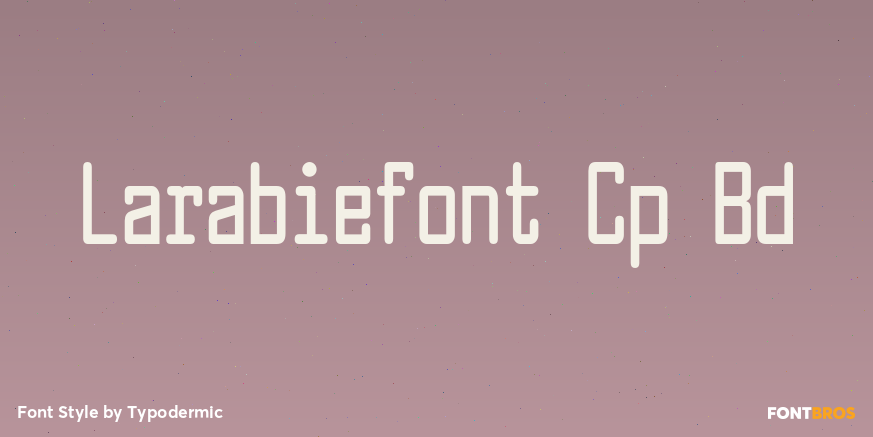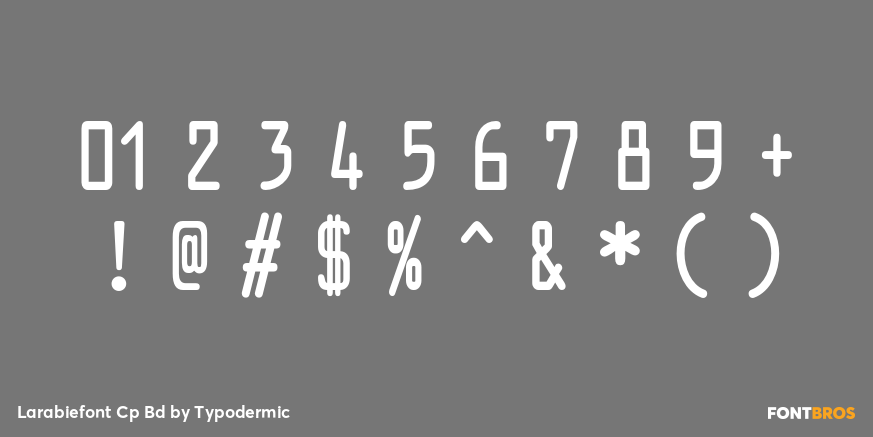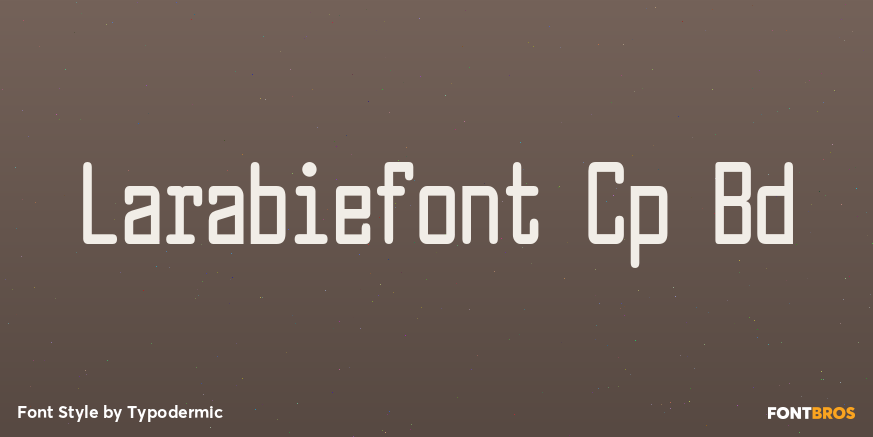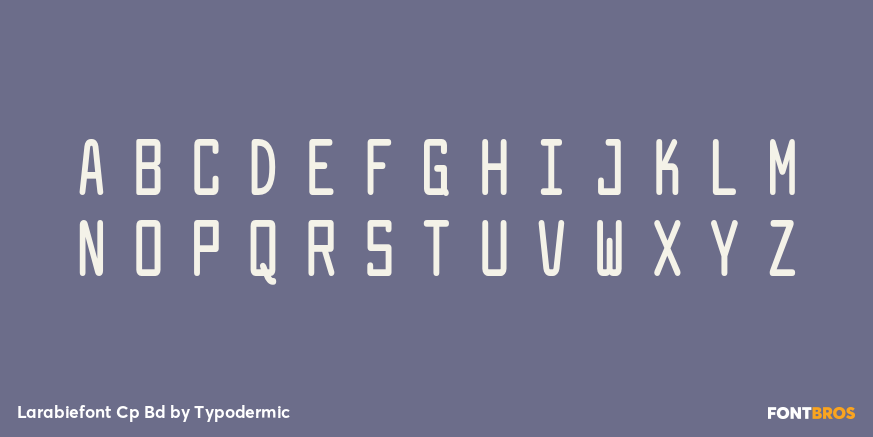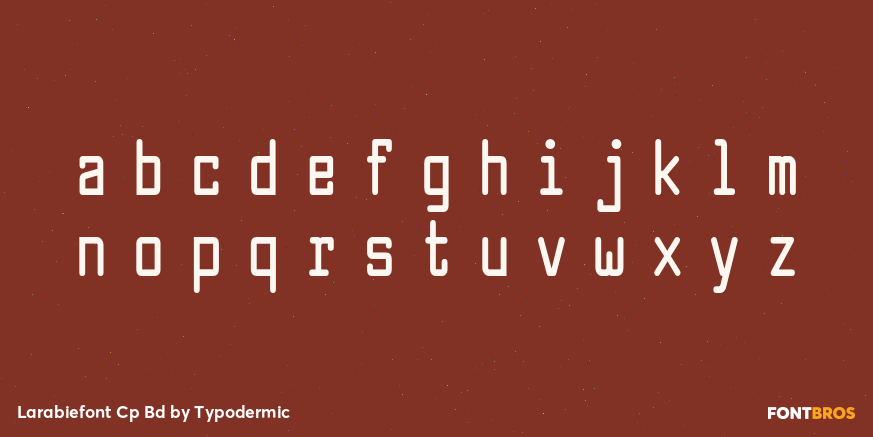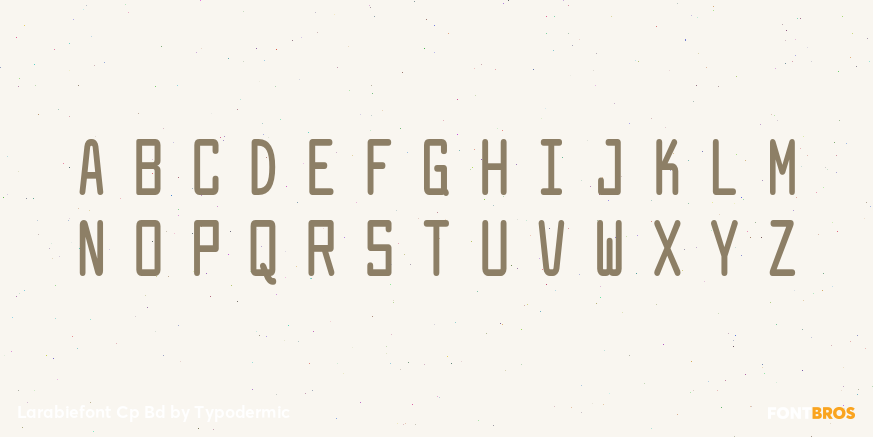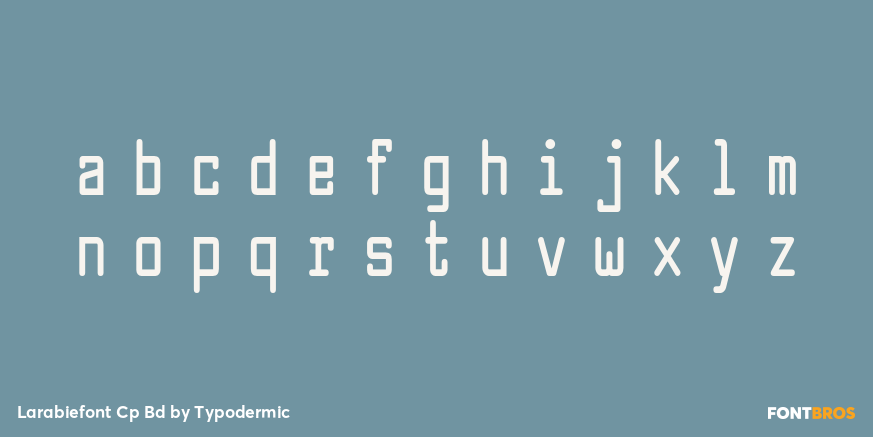
Larabiefont Cp Bd
Technical brands often need the same visual language to survive very different physical spaces. A model number may have to fit into a narrow control-panel strip; a product name may need to stretch across a broad equipment housing; exhibition graphics may demand something wider still. A conventional monospaced face gives the designer one fixed proportion. Larabiefont turns width into part of the system, ranging from Extra-Condensed through Extra-Expanded while preserving the same squared, machine-oriented construction.
That makes Larabiefont particularly useful for test and measurement equipment. Oscilloscopes, spectrum analyzers, bench power supplies, battery-testing systems, calibration instruments, environmental data loggers, semiconductor inspection tools, metrology equipment, and laboratory hardware all combine cramped identifiers with much larger product surfaces. Extra-Condensed and Condensed styles can handle rack-unit labels, model numbers, narrow headings, and equipment diagrams; Expanded and Extra-Expanded can carry product-family names, launch graphics, booth displays, and large technical headings.
Professional audio and electronic music hardware presents a similar problem. Synthesizers, grooveboxes, audio interfaces, effects processors, mixing controllers, signal processors, modular systems, and stage-lighting hardware vary enormously in shape. A narrow rack unit and a broad desktop instrument may belong to the same product family but offer completely different typographic real estate. Larabiefont’s width range lets model names, control-panel headings, series identifiers, packaging, manuals, and exhibition graphics adapt without abandoning the family’s visual language.
Field communications and surveying equipment provide another natural territory. Satellite communicators, GNSS receivers, rugged radios, marine electronics, drone ground-control hardware, mapping instruments, inspection cameras, and portable scientific equipment all rely on terse identifiers and highly organized visual systems. Larabiefont’s machine-age ancestry gives those applications a recorded, instrumental quality without imitating terminal pixels, military stencils, or conventional coding fonts.
Industrial automation extends the same logic into the factory. Machine-vision cameras, robot controllers, CNC systems, automated inspection equipment, pick-and-place machines, laser measuring systems, and fabrication equipment need typography across housings, panels, cases, technical literature, and trade-show environments. Different widths can take on different spatial jobs while still reading as one coherent system.
Larabiefont grew from the severe lettering associated with the Olympia Senatorial typewriter, sometimes nicknamed the “robot font.” That heritage helps explain its unusual relationship with technology: historical without becoming nostalgic, and futuristic without relying on familiar science-fiction clichés.
Larabiefont’s strength is not simply that it is monospaced or technical. It gives equipment manufacturers, engineering organizations, and technology-focused institutions a machine-oriented display system that can expand or contract with the object carrying it.